Project Manual — Part 4: Who designed the street plates?
The search for the origin of the design of the street signs themselves. Who designed them and when? Was their design standardized?
Since street plates are essentially uniform throughout Slovakia, one could expect their design to be defined by some standard, norm or regulation. The earliest reference of street and building labeling that I have found is Decree 97/1961 of the General Bureau of the National Committees from September 4th, 1961 on the names of municipalities, street labeling and house numbering. It contains information about the placement and plate contents but does not address their appearance. This decree was replaced by Decree 93/1970 of the Ministry of the Interior of the Slovak Socialist Republic from June 18th, 1970 on the naming of municipalities and their parts, streets and other public spaces and the numbering of buildings, which was supplemented by the following annex:
As we can see this template contains dimensions and defines the layout, but does not mention a typeface at all. Although by the 1970s the street plates using Manual Grotesk have long been in production, the pattern surprisingly shows a completely different typeface that has actually never been used on street plates. It is most likely a typeface that can be found in the researched publications under the name Prague Grotesk. I was unable to find anything about the origins of this template.
Decree 93/1970 was in force until 1990, when it was replaced by Act 517/1990 of the Slovak National Council from November 22nd, 1990 on the territorial and administrative division of the Slovak Republic. This act dismisses the design template, but its article 8, paragraph 4 introduces a sentence “All plates used within a municipality shall use a uniform design.” Like street naming and designation, the design of street plates was left to each municipality’s will.
In the wording of the most recent regulation dealing with street plates – Decree 31/2003 of the Ministry of the Interior of the Slovak Republic from January 30th, 2003 on the designation of streets and other public spaces and numbering of buildings – the sentence “All plates used within a municipality shall use a uniform design” was supplemented by "The plate with the reference number and the plate with the orientational number shall be placed next to each other so that they are clearly visible from the street and do not disturb the appearance of the building." These are the only references regarding design.
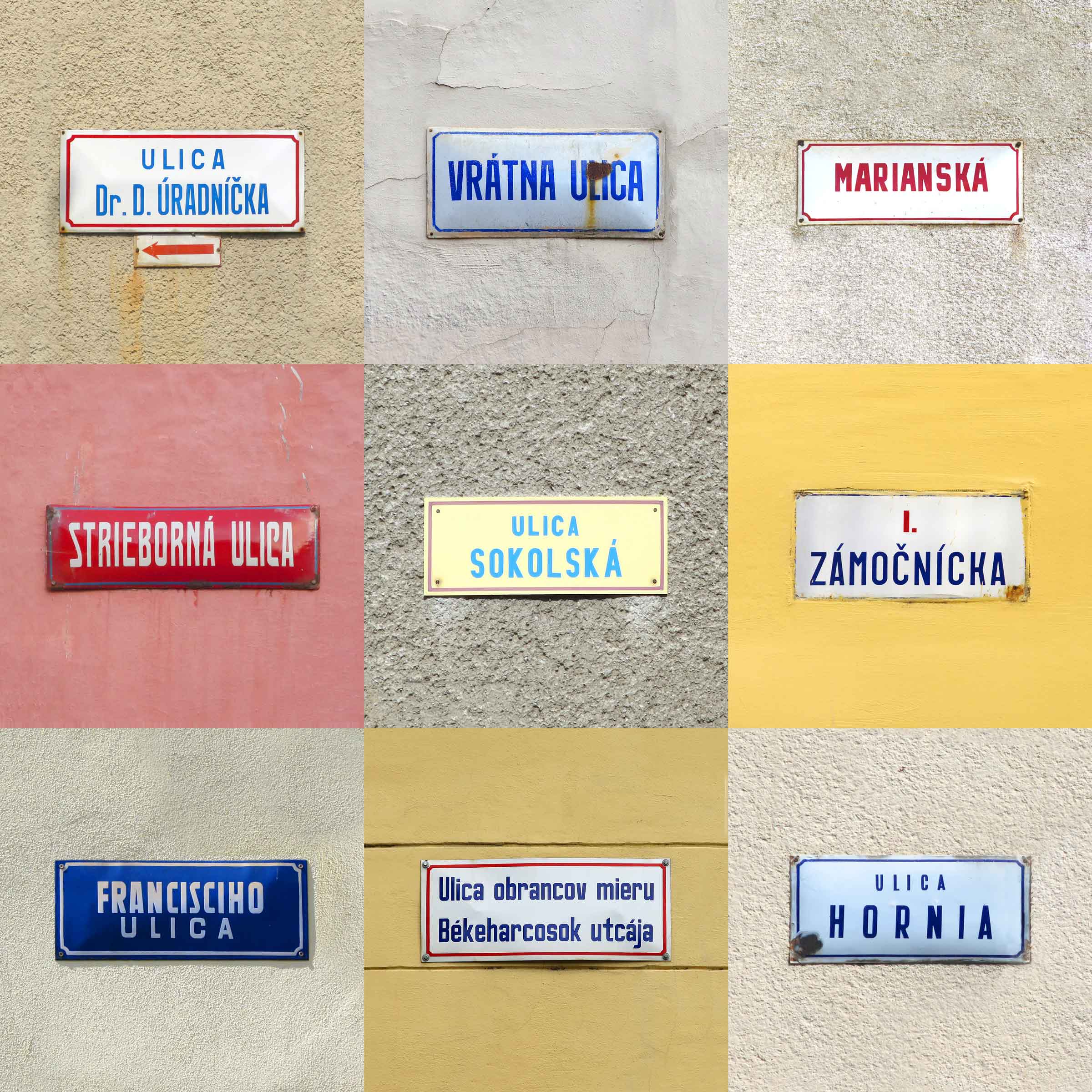
After reviewing the laws, I turned to the databases of the Slovak Office for Standards, Metrology and Testing. Since 1950s, there are only two technical standards concerning type, unfortunately neither of them deals with the street plates typeface.
So where did the design come from? There is one relatively rational explanation. The street plates currently in use in Slovakia first appeared in the early 1950s and were produced in the state-owned factory Kodreta Myjava. Kodreta manufactured plates for the whole country and had a monopoly on their production. From the same period comes Richard Pipal’s publication Písmo a jeho konstrukce (Type and its construction), which contains the most detailed description of the construction of the Manual Grotesk model. Therefore, it is quite likely that both the plate layout and the typeface were simply designed by one of Kodreta's responsible staff, who has learned and used Richard Pipal’s narrow upright grotesk. And since the plates were not produced by anyone else than the state-owned Kodreta, there was no need to define their design in a technical standard or in the law.
Of course, this is only my assumption. I'd be happy to hear from anyone who could bring more light to the origin of our street plates typeface.